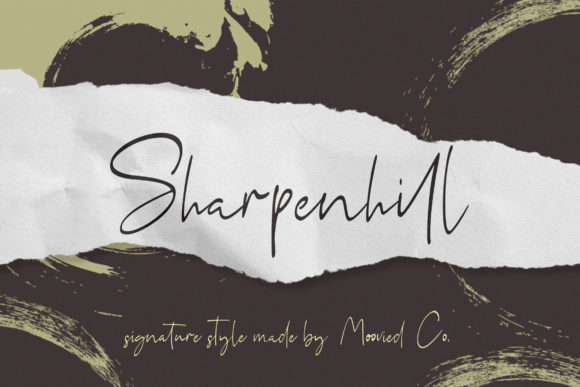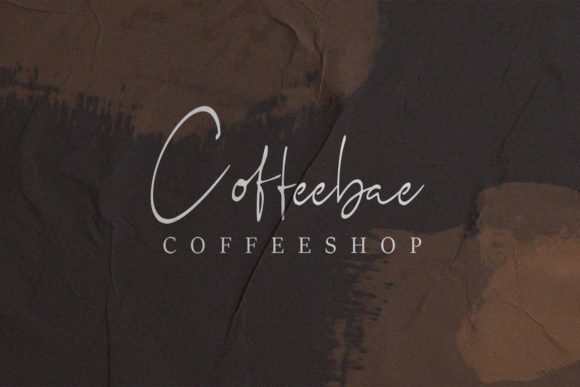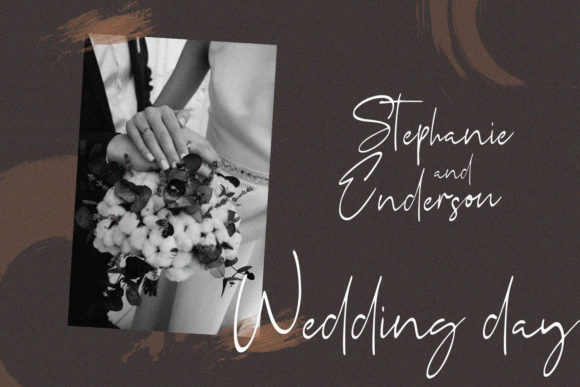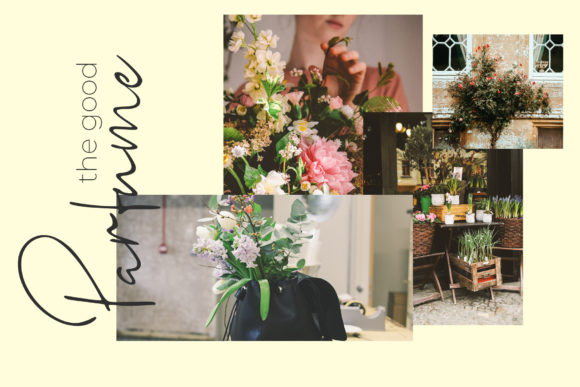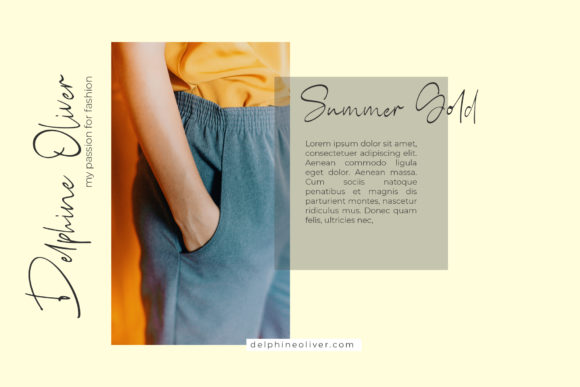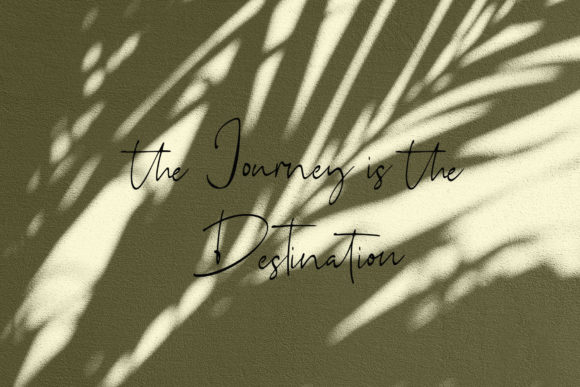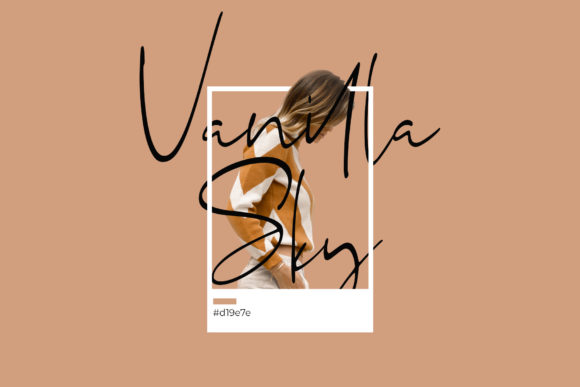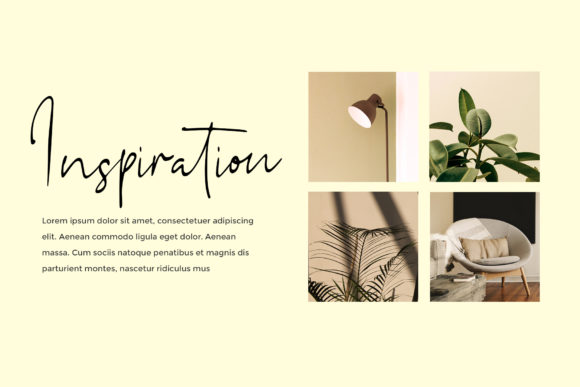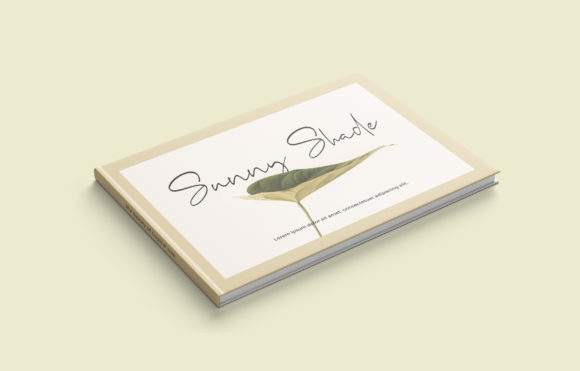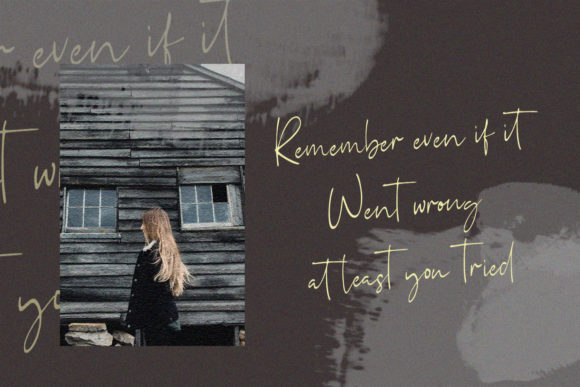
HomeScript FontsSharpenhill Font Script Fonts Sharpenhill Font FacebookXPinterestWhatsApp Sharpenhill Font Poster 2 Sharpenhill Font Poster 3 Sharpenhill Font Poster 4 Sharpenhill Font Poster 5 Sharpenhill Font Poster 6 Sharpenhill Font Poster 7 Sharpenhill Font Poster 8 Sharpenhill Font Poster 9 Sharpenhill Font Poster 10 Sharpenhill Font Poster 11 Sharpenhill Font Poster 12 About Sharpenhill Font Sharpenhill is a fun and cool signature font that will add a touch of authenticity to any design idea. DOWNLOAD ON CREATIVE FABRICAThis font is sold and delivered by Creative Fabrica. Font Canyon may earn a commission if you buy through this link. People also explored Potato Taste Font Splasher Font Baby Shower Font Organic Fridays Lined Font Staytrue Font Satherday Font Summer Holiday Font Mensionery Extra Bold Font Woman Love Font 361 0 TagsSharpenhill Font Previous articleRustic FontNext articleKeshia Font LEAVE A REPLY Cancel reply Comment: Please enter your comment! Name:* Please enter your name here Email:* You have entered an incorrect email address! Please enter your email address here Website: Save my name, email, and website in this browser for the next time I comment. Personal Use Free Austins Personal Use Free Read more about this font Glowing Personal Use Free Read more about this font Micahel Personal Use Free Read more about this font Legacy Personal Use Free Read more about this font BLOG To increase your work productivity, choose the most readable fonts. In today's fast-paced work environment, where digital communication and information consumption are integral to our daily routines, the choice of fonts can significantly impact... How to Cut Any Font on Cricut: Convert a Font to SVG (Free) Best Fonts for T-Shirt Design – Top 2025 Picks Top 7 Google Fonts Alternatives for Faster and Privacy-Friendly Web Design (2025)